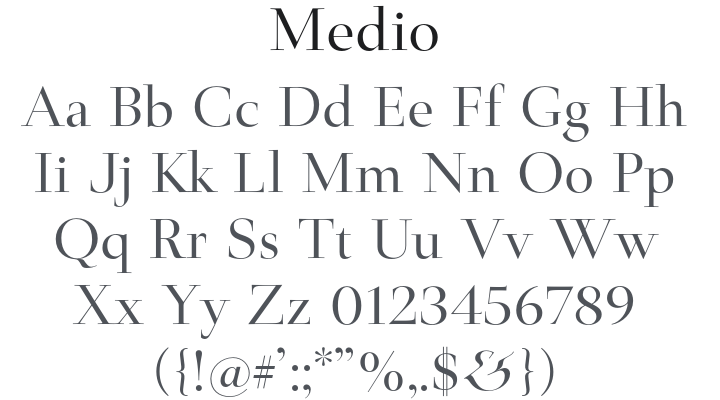
Medio Font
by dot colon
About Medio
Medio is a serif typeface developed based on the framework of Tenderness. While it possesses the elegance of Modern Roman typefaces like Bodoni and Didot, it also incorporates the fluid stroke characteristics typical of Old Roman styles.